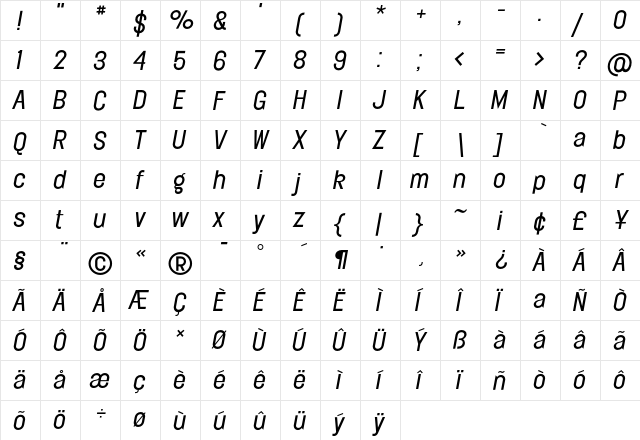
Elephant LightOblique Font Preview
Design Context for Elephant Typeface
Elephant takes a measured approach to typography — its balanced proportions and neutral character make it a reliable workhorse for both digital and print work. The dynamic lean of this cut emphasises speed and emphasis in any layout. Its slender proportions lend an understated elegance to any composition.
Pro Tip: Try Elephant for annotation and caption copy alongside an upright companion — the contrast in angle creates a dynamic but ordered typographic system.